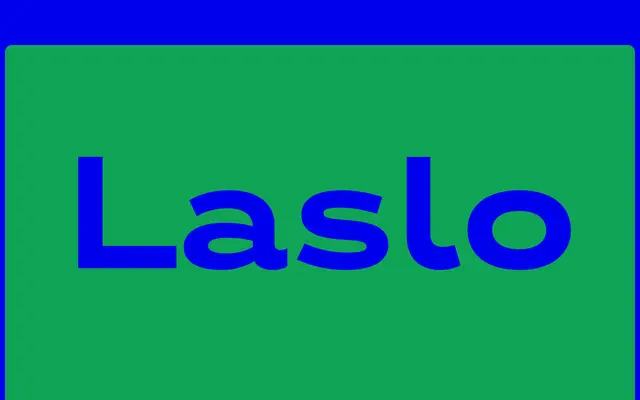
Laslo
Hungarumlaut · Adam Katyi · 2018
A Bauhaus-inspired geometric sans by Adam Katyi, named after László Moholy-Nagy and built around a single archival letterform found in a 1930s wallpaper specimen.
Designed by Adam Katyi and released on what would have been Moholy-Nagy's 123rd birthday, Laslo takes a single letter 'a' from a Tapetenmusterbuch at the Bauhaus Archive as its starting point, extrapolating a full alphabet with careful attention to proportion. Rounded letters carry a subtle vertical straight segment within their countershapes, visible at large sizes yet receding at text sizes to read as fully round. The family runs across five weights from Thin to Black in two widths, Normal and Wide, with OpenType alternates for a more strictly geometric style including a single-storey 'a' and optically equalised arms on E and F.
Laslo is a geometric sans with Bauhaus construction principles at its core, featuring grid-based proportions, constructed letterforms and alternate single-storey characters typical of the geometric sans tradition.